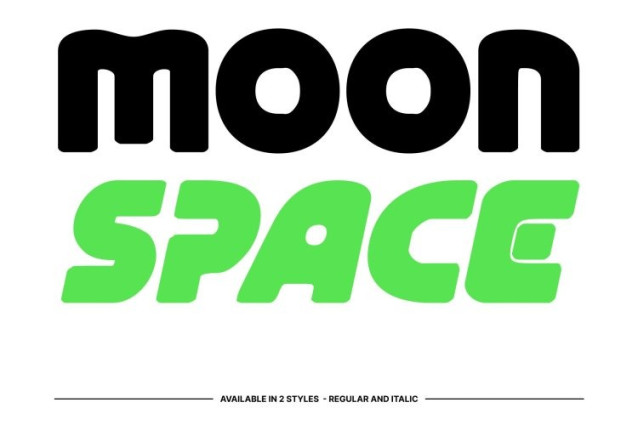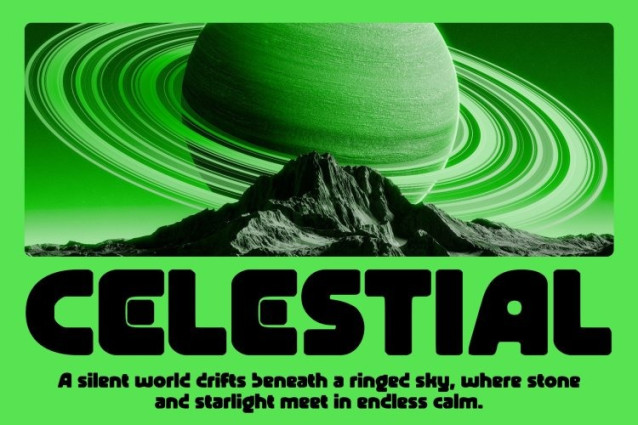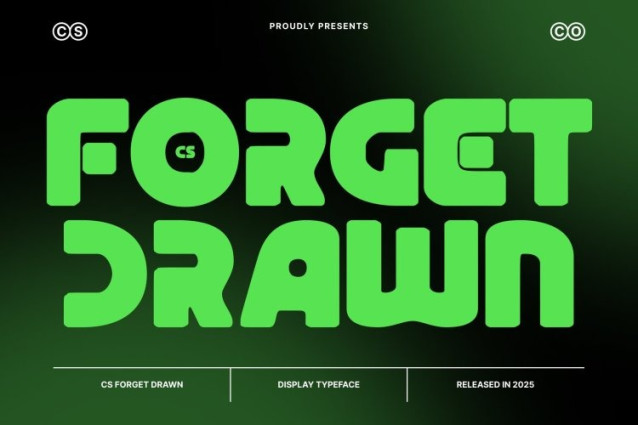
CS Forget Drawn Font This is a modern display font designed with futuristic aesthetics, combining technological sophistication with an artistic touch. The drawn effect gives each letter a handcrafted, dynamic feel, adding a unique personality to its bold, geometric forms.
Geometric Construction with Bold Presence
Built on a precise geometric foundation, each character is balanced and structured, creating a sense of stability and strength. Bold lines enhance visibility and impact, while the drawn effect introduces subtle irregularities that make the font feel lively and expressive.
Futuristic Style for Technology-Oriented Designs
With clean angles and modern proportions, this font conveys innovation and digital advancement. Ideal for tech branding, UI headlines, sci-fi visuals, and futuristic campaigns, it merges precision with creativity for a forward-looking aesthetic.
Versatile Display Font for Creative Applications
This font excels in titles, posters, logos, gaming visuals, and experimental layouts. Its bold presence ensures readability at larger sizes, while the drawn effect adds an artistic, one-of-a-kind character to every project.